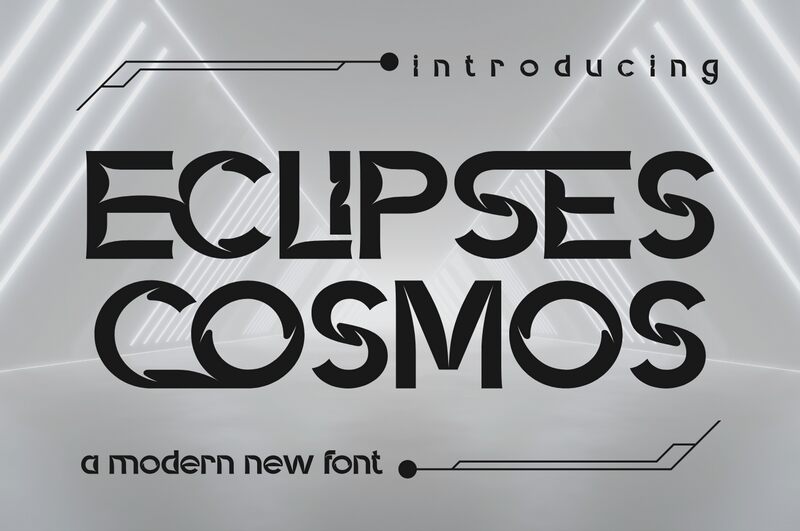
Eclipses Cosmos font family designed by 177Studio features a techno-inspired style infused with futuristic geometric shapes and elements. The free font family consists of 2 font styles that together form a complete, polished, and finalized design useful in various contexts and applications. Consistent in terms of its overall style, Eclipses Cosmos mainly concentrates on uppercase letters along with numbers and a set of punctuation marks. Its lines and angles are energetic, sharp, and pointed. Its origins and background are that of space and technology.
Space is full of mysteries; the first is the billions of galaxies and universes. And if you can’t find inspiration within its cosmos, you can always find it in its font. Eclipses Cosmos brings you an engaging and futuristic display font with angular patterns and dynamic flow. Its letters and numbers showcase a mesmerizing textured design while its icons dazzle with their uniqueness. This font with all that it has to offer is suitable for posters and flyers.